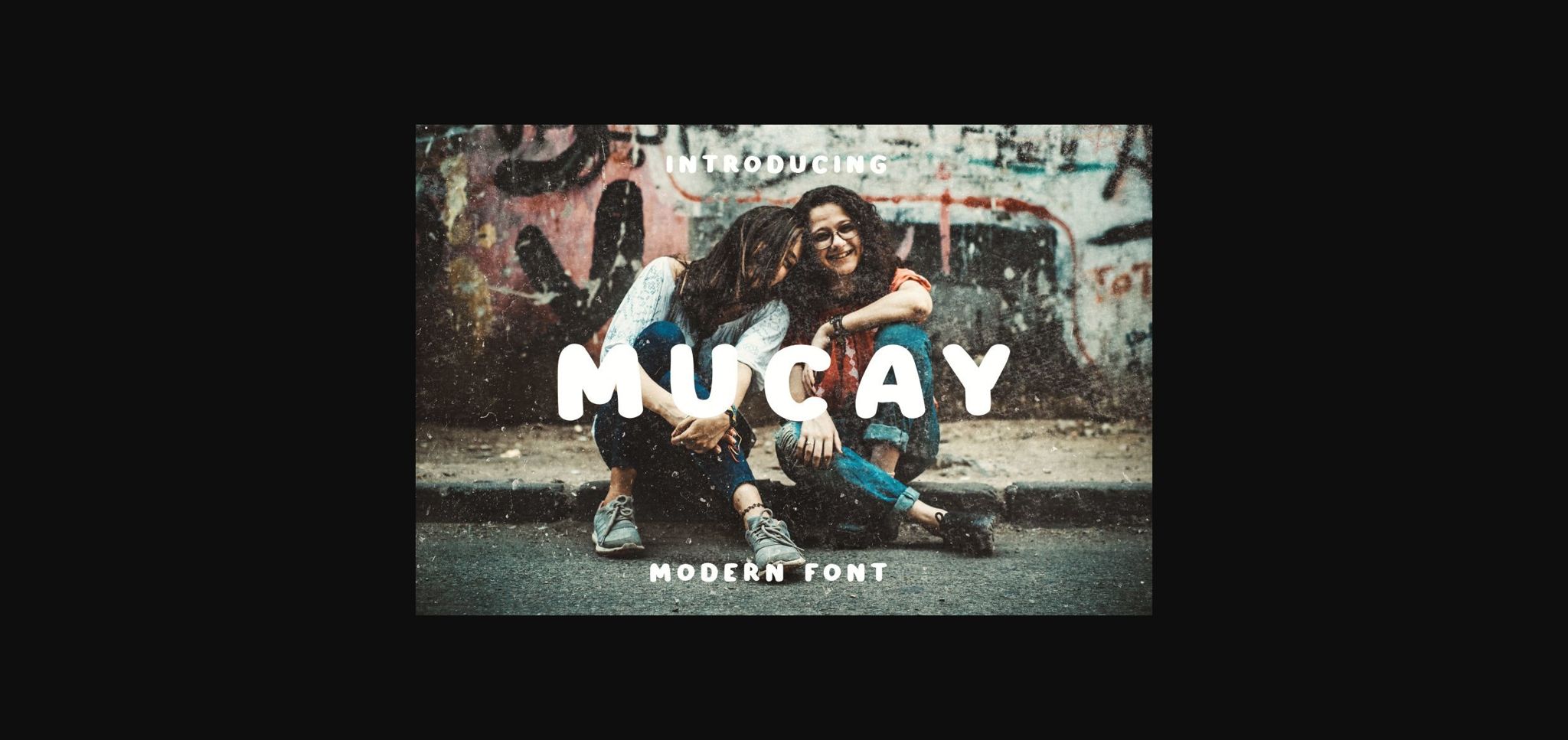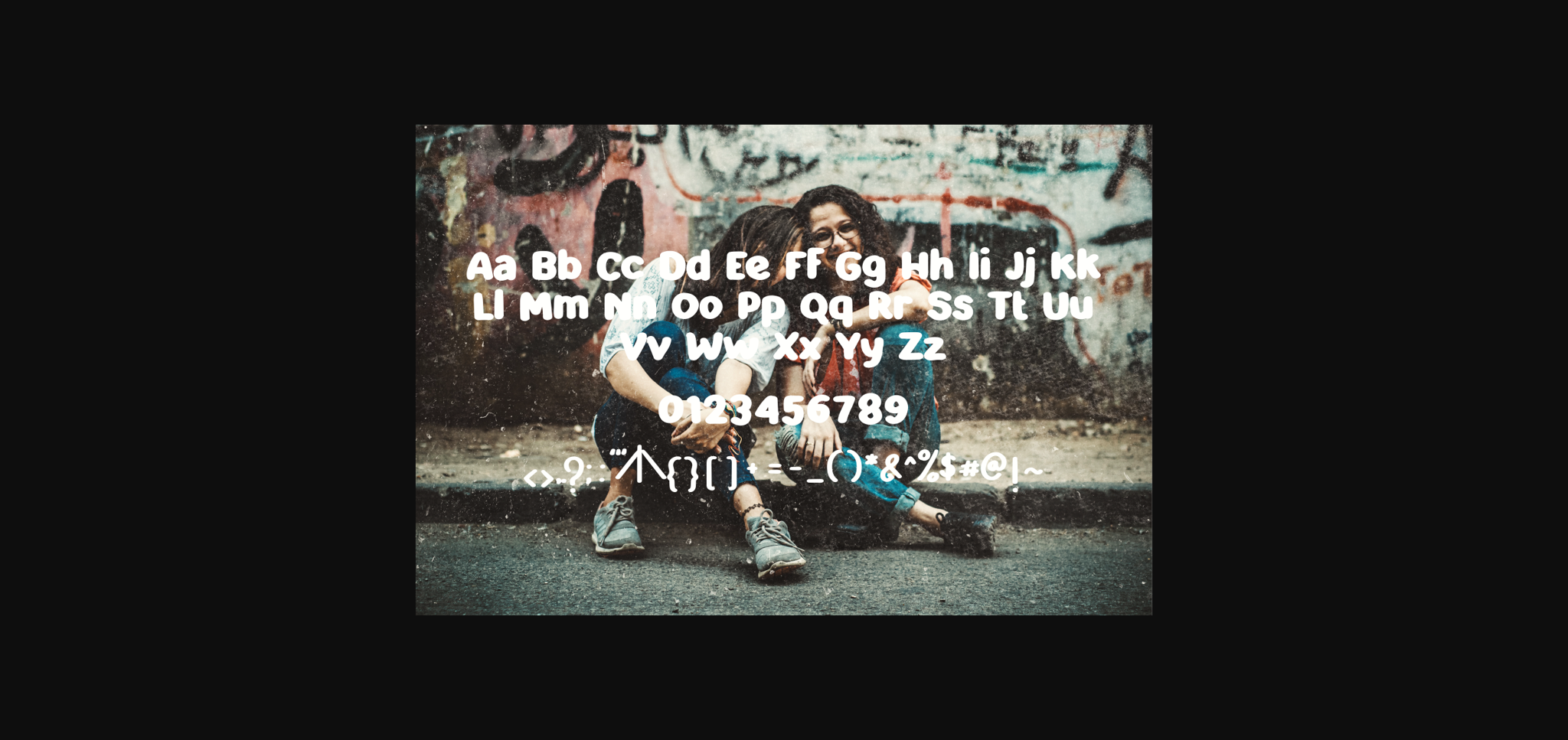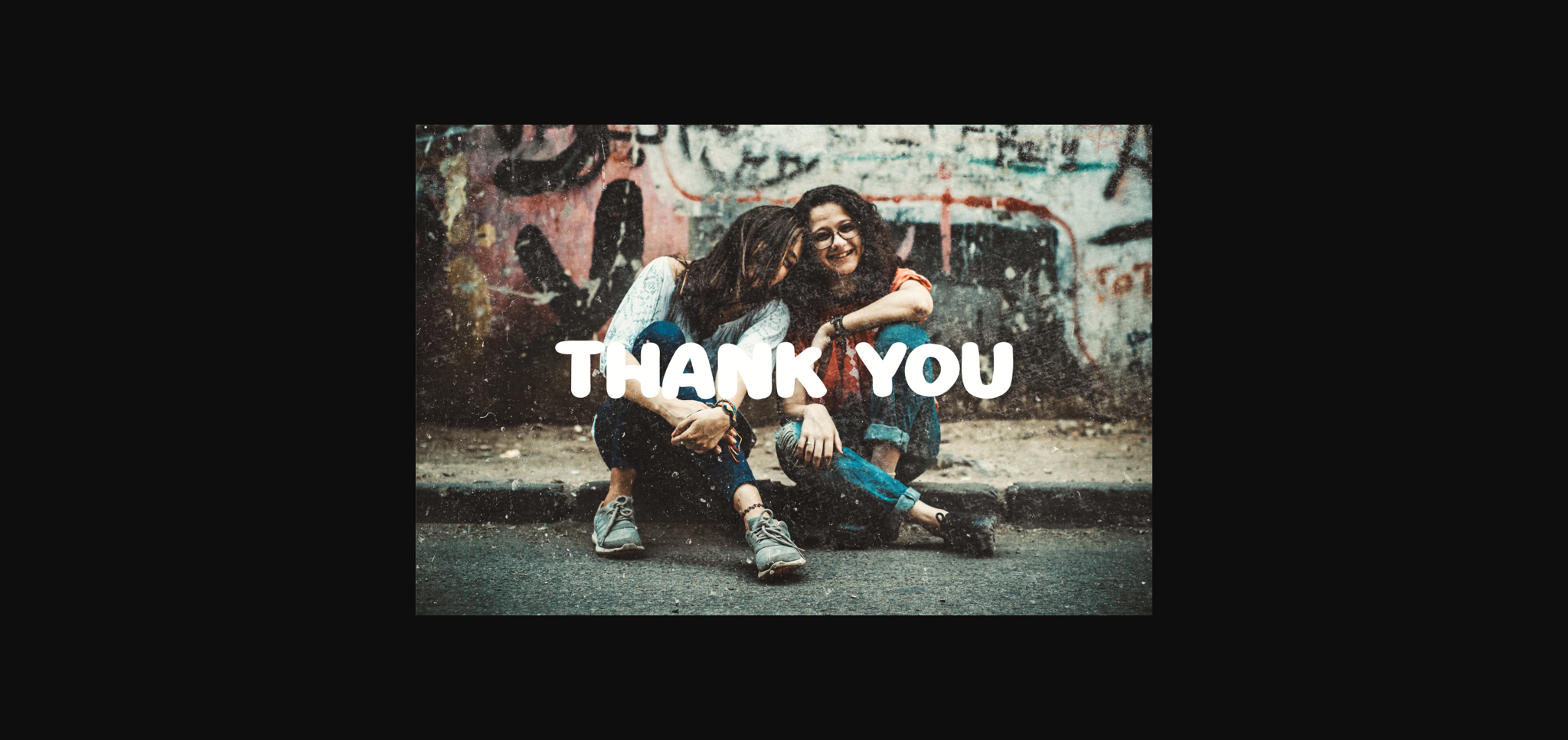
Mucay Font
About Mucay Font
Mucay is a modern and cool sans serif font. Stylish and versatile, this font is perfect for a wide spectrum of applications.